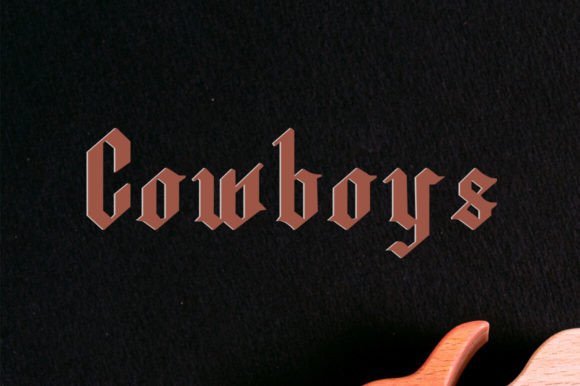
**Cowboys Font: Graffiti-Inspired Boldness Unleashed for Your Creative Ventures**
In the world of fonts, Cowboys stands as a true renegade, a graffiti-inspired masterpiece brimming with raw energy and edgy charm. It's the perfect font for those who dare to break boundaries and crave a touch of rebellion in their designs. With its bold, in-your-face presence, Cowboys leaves no room for subtlety, demanding attention with every stroke.
Crafted with precision by the skilled hands at Hendrik Studio, Cowboys belongs to the esteemed family of blackletter fonts. Its roots lie in the urban landscapes where graffiti artists transform dull walls into vibrant canvases. This font captures the essence of that rebellious spirit, bringing a touch of streetwise swagger to your projects.
**Unleash Your Inner Rebel with Cowboys Font**
Cowboys is more than just a font; it's an attitude. A declaration of defiance against the mundane. Whether you're a maverick musician designing striking posters for your upcoming gig, a fearless fashion designer injecting edge into your apparel creations, or a streetwear enthusiast looking to add a dose of urban cool to your designs, Cowboys is your weapon of choice.
Its bold strokes command attention, making it the ideal font for display boards that demand to be seen. Picture your designs adorning a stage backdrop, captivating your audience with its raw power. Or envision your brand logo standing out with a unique and memorable identity that sets you apart from the crowd.
**Cowboys Font: Striking a Chord with Music and Streetwear Aficionados**
Cowboys finds its niche in the worlds of music and streetwear, where self-expression and individuality reign supreme. It's the perfect match for music posters and album covers, adding a touch of rock 'n' roll grit to your creations. Bands and artists can harness the energy of Cowboys to make their music come alive on posters and merchandise, capturing the raw passion and intensity of their performances.
Streetwear designers, too, will find Cowboys an invaluable ally. Its bold and edgy style perfectly complements the rebellious spirit of streetwear fashion. T-shirts, hoodies, and accessories adorned with Cowboys font designs will resonate with those who embrace urban culture and crave a distinctive look.
**Embrace the Boldness, Exude the Edge with Cowboys Font**
Cowboys Font is not for the faint-hearted. It's a font that demands attention, a font that makes a statement. If you're looking for a conventional, safe choice, Cowboys is not for you. But if you're a creative risk-taker, a visionary who thrives on pushing boundaries, then Cowboys is your font. It's the ultimate tool to unleash your inner rebel and bring your designs to life with an unforgettable edge.